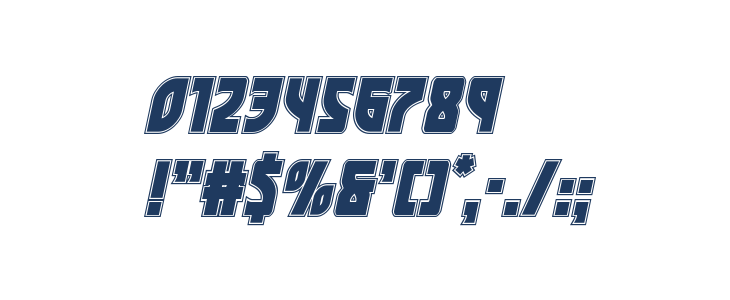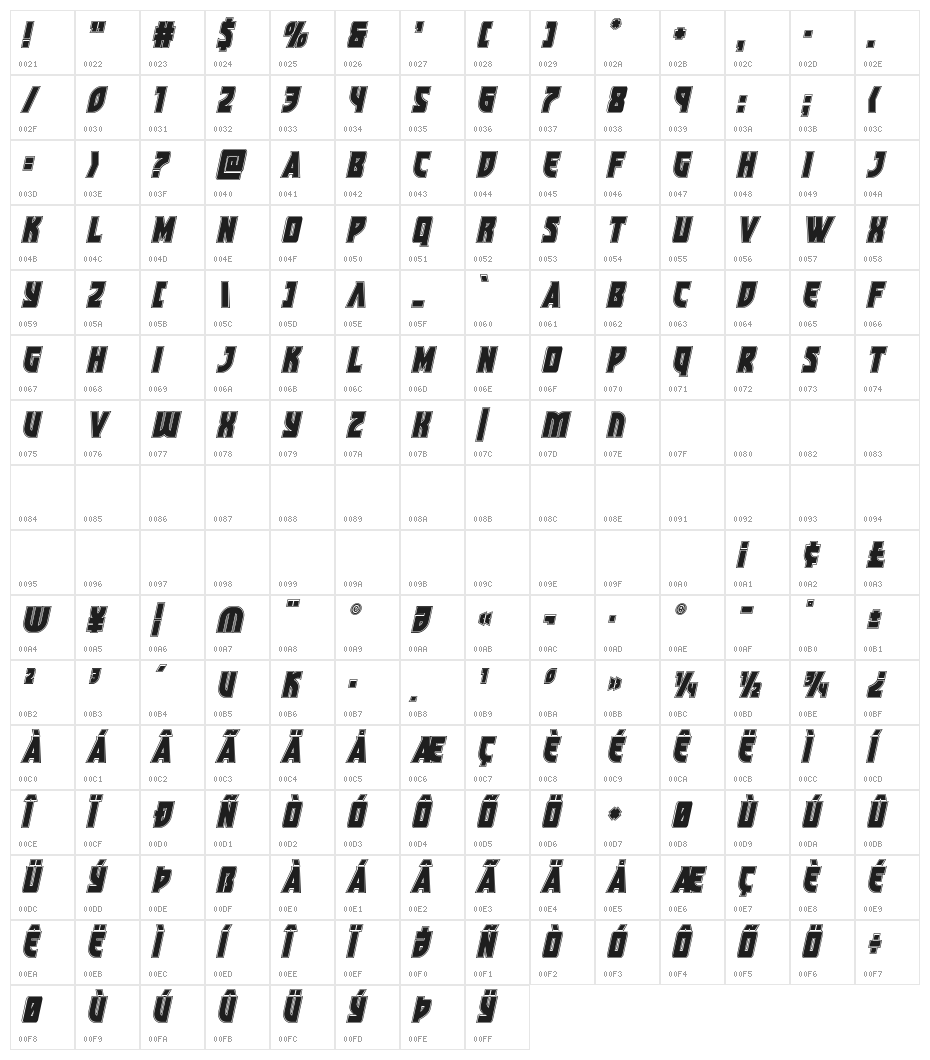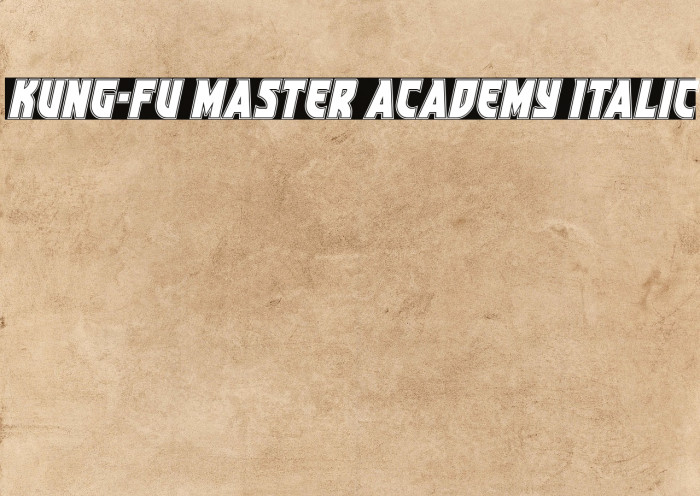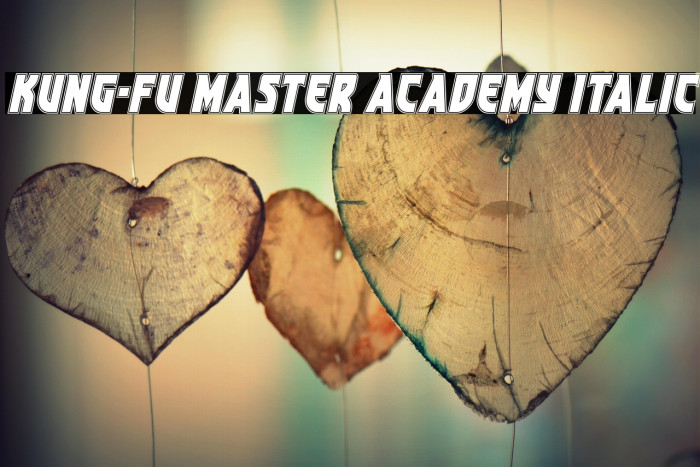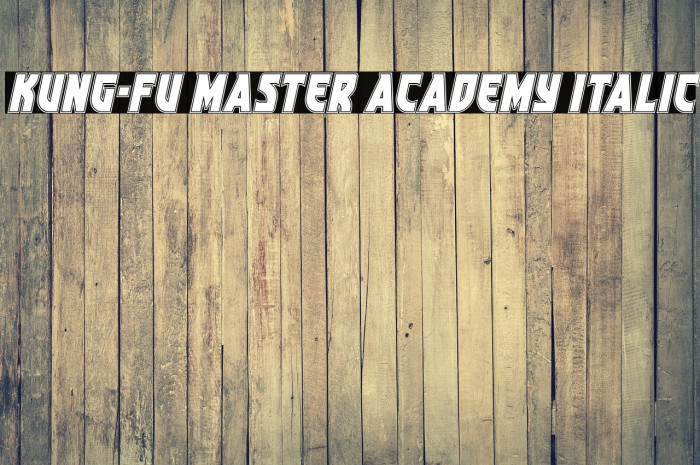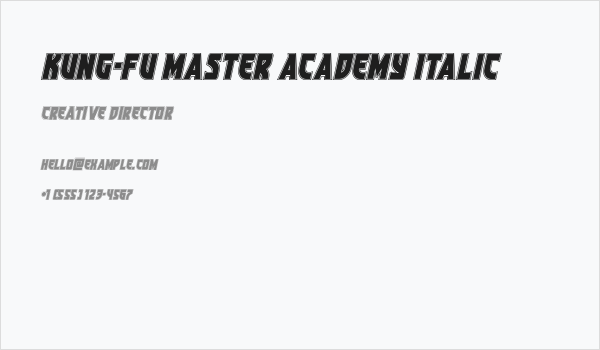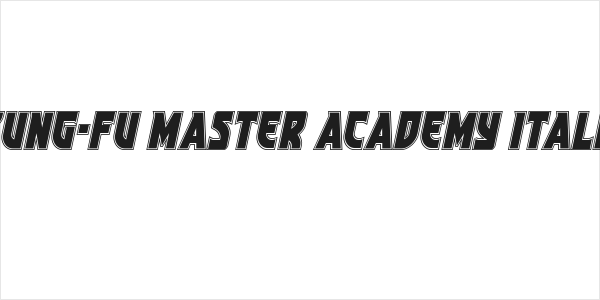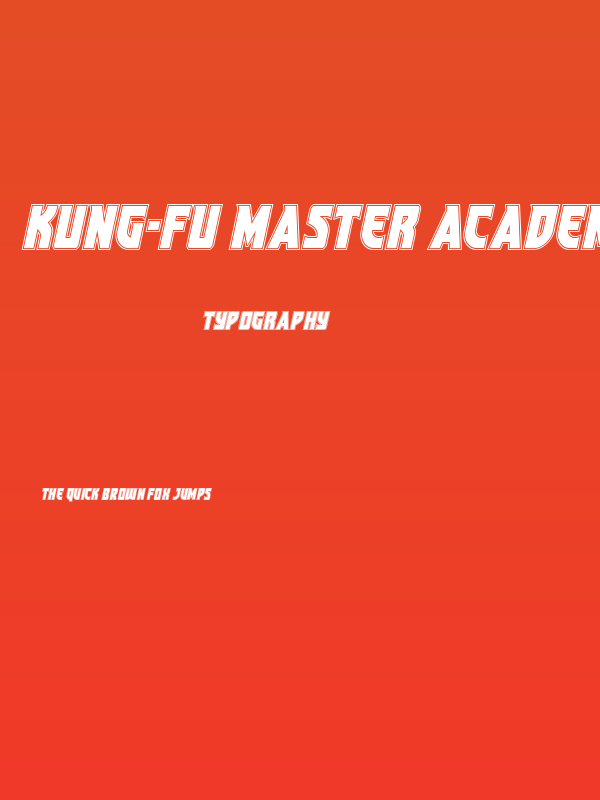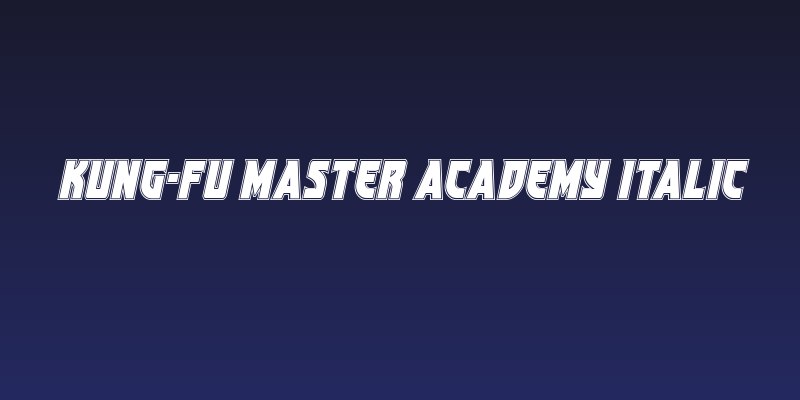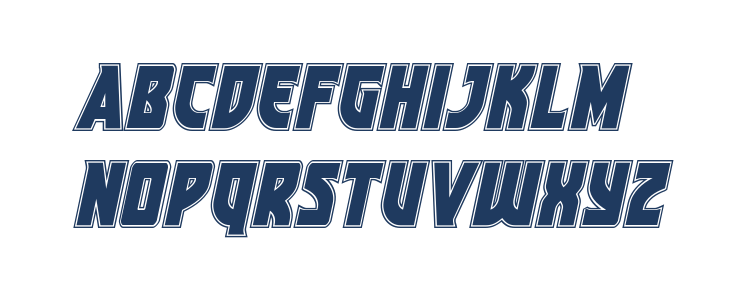
Kung-Fu Master Academy Italic Font
Kung-Fu Master Academy Italic Description
This font features a bold and dynamic style with a strong italic slant, giving it a sense of motion and energy. The characters are designed with thick strokes and sharp angles, creating a powerful and impactful appearance. The font is outlined, adding a layer of depth and dimension that enhances its visual appeal. This style is reminiscent of action and adventure themes, making it suitable for projects that require a bold statement. The uppercase letters are particularly striking, with a consistent weight and width that maintain readability while delivering a dramatic effect.
Proposed ProjectsIdeal for action-themed posters, video game titles, sports branding, and dynamic logos.